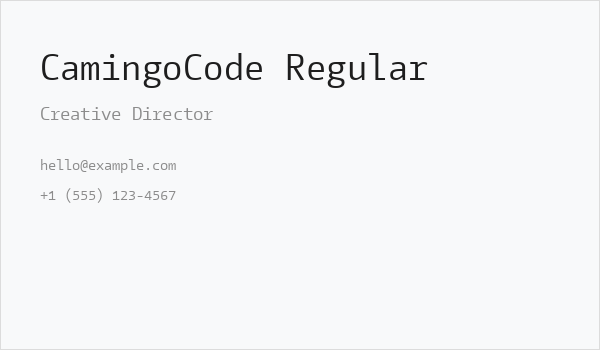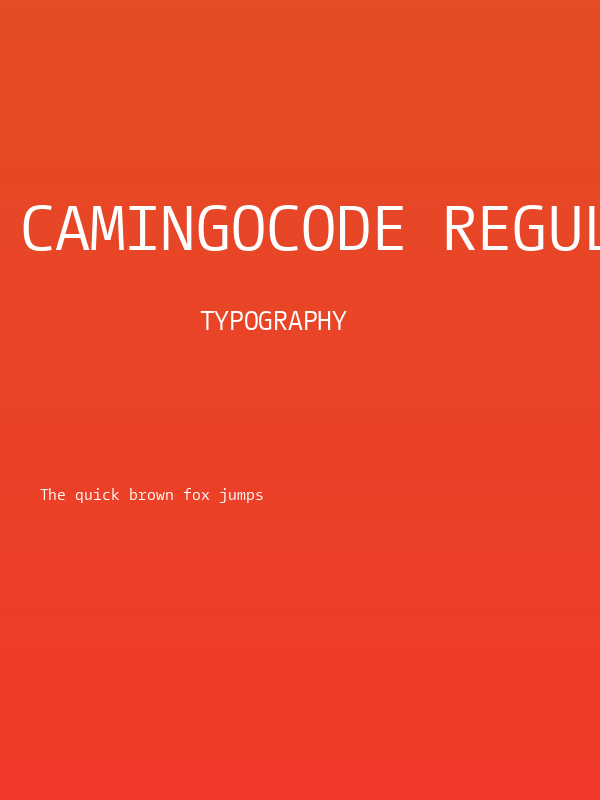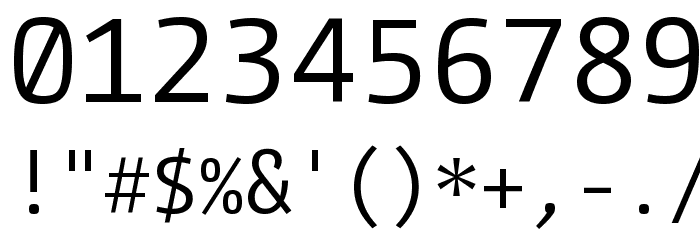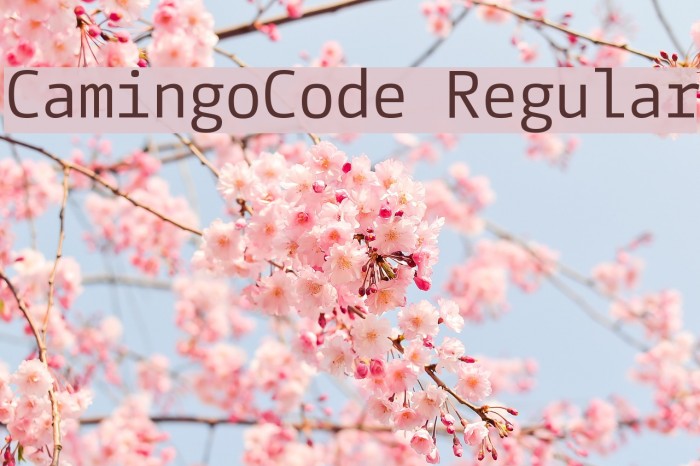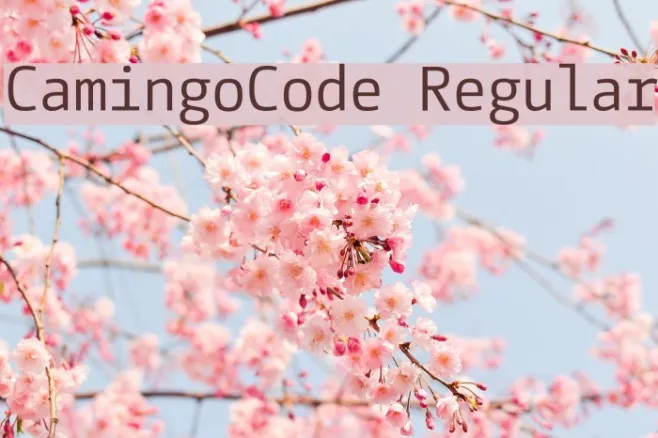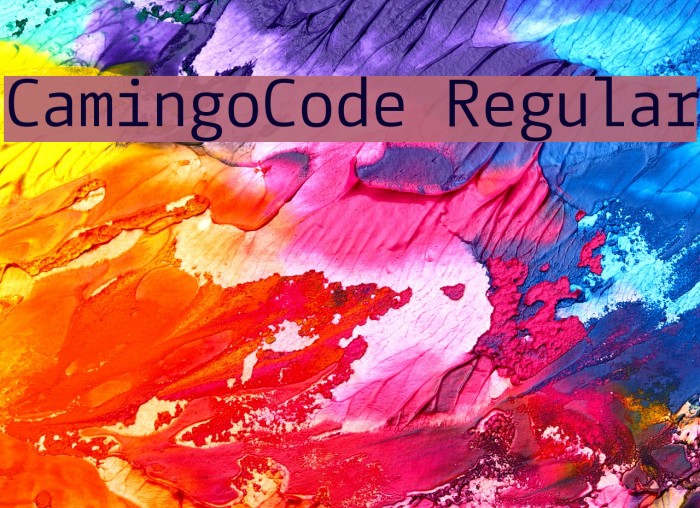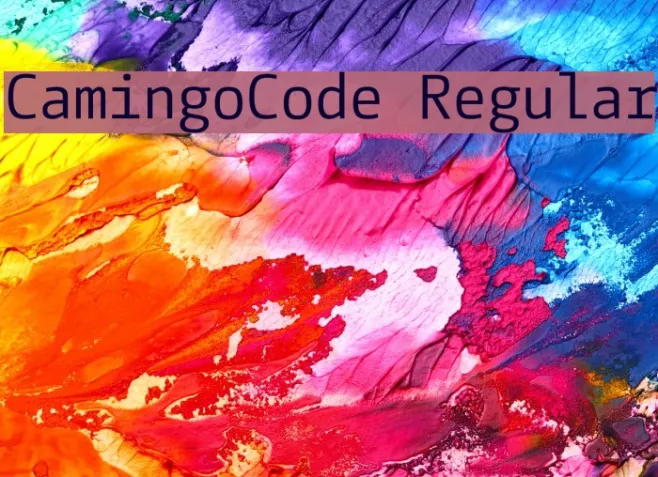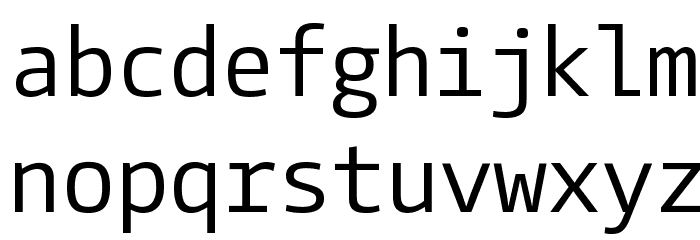
CamingoCode Regular Font
CamingoCode Regular Description
This font features a clean and modern design with a monospaced style, making it ideal for coding and technical documents. The characters are evenly spaced, providing a uniform appearance that enhances readability. Its geometric shapes and straight lines give it a contemporary look, while the consistent stroke width ensures clarity across all characters. The font includes a full set of uppercase and lowercase letters, numerals, and a variety of special characters, making it versatile for various applications. Its simplicity and precision make it a great choice for developers and designers who need a reliable and aesthetically pleasing typeface.
| Use Case | Headlines, Body text, Logos, Coding |
| Proposed Projects | Suitable for coding environments, technical documentation, and any project requiring a monospaced font. |